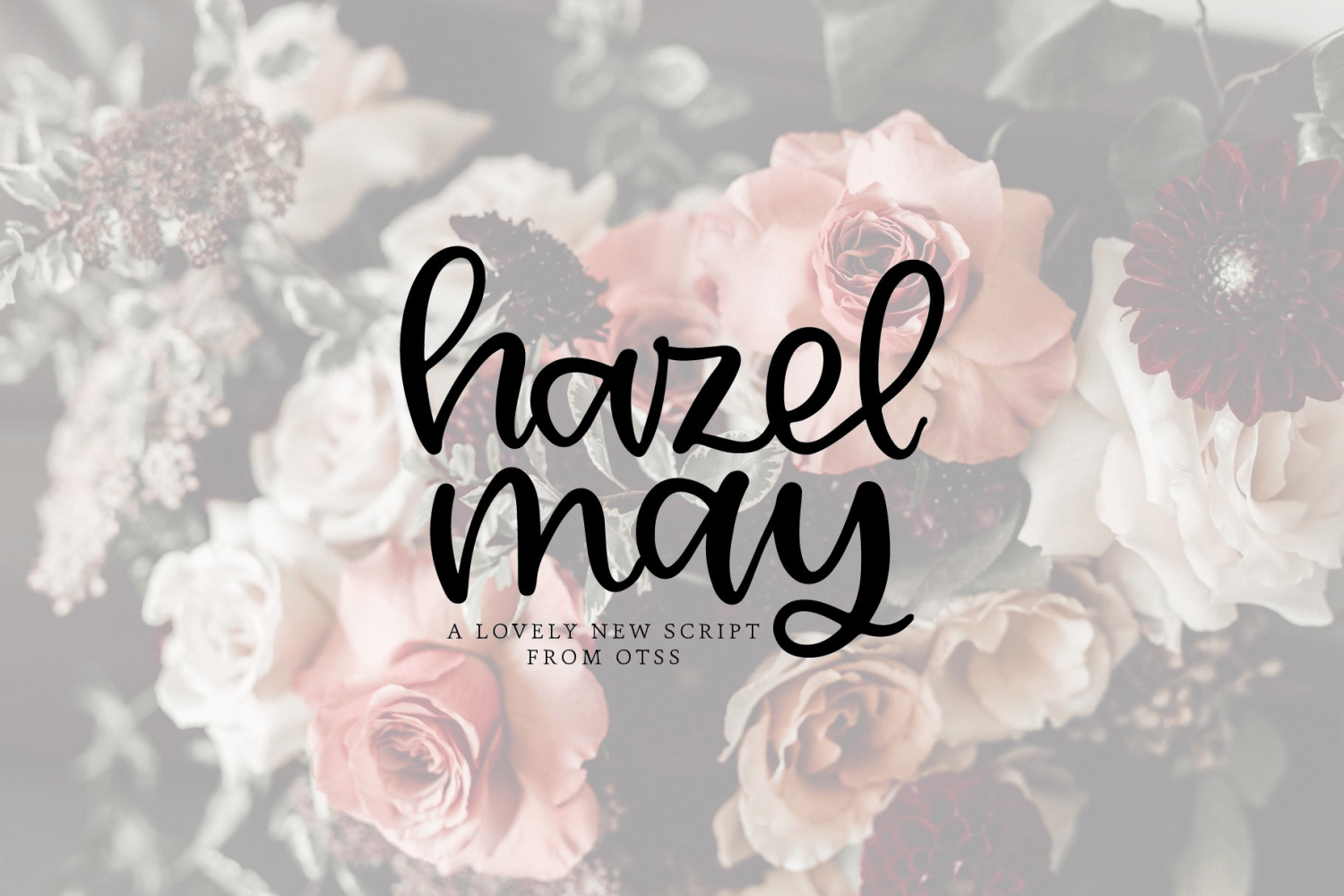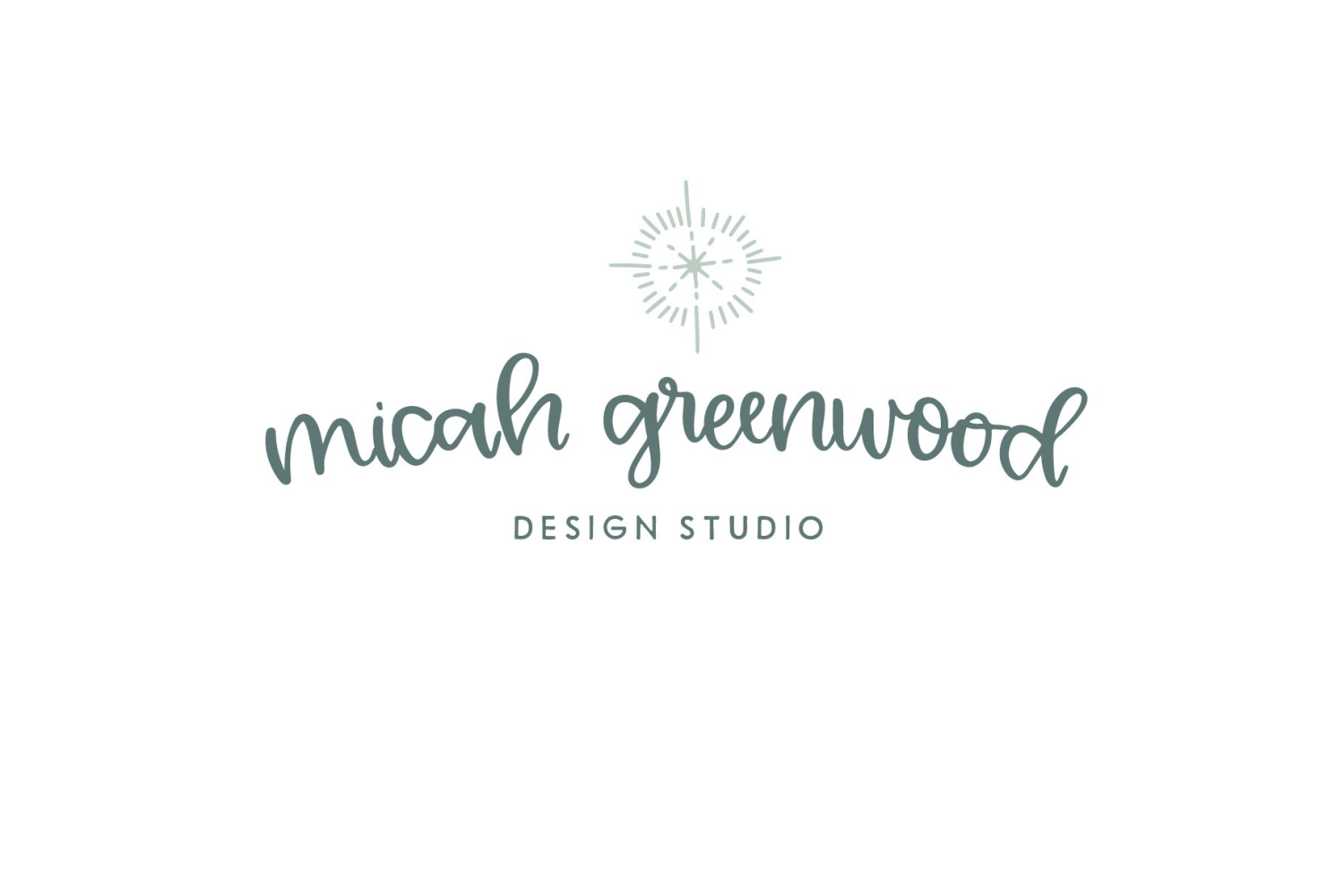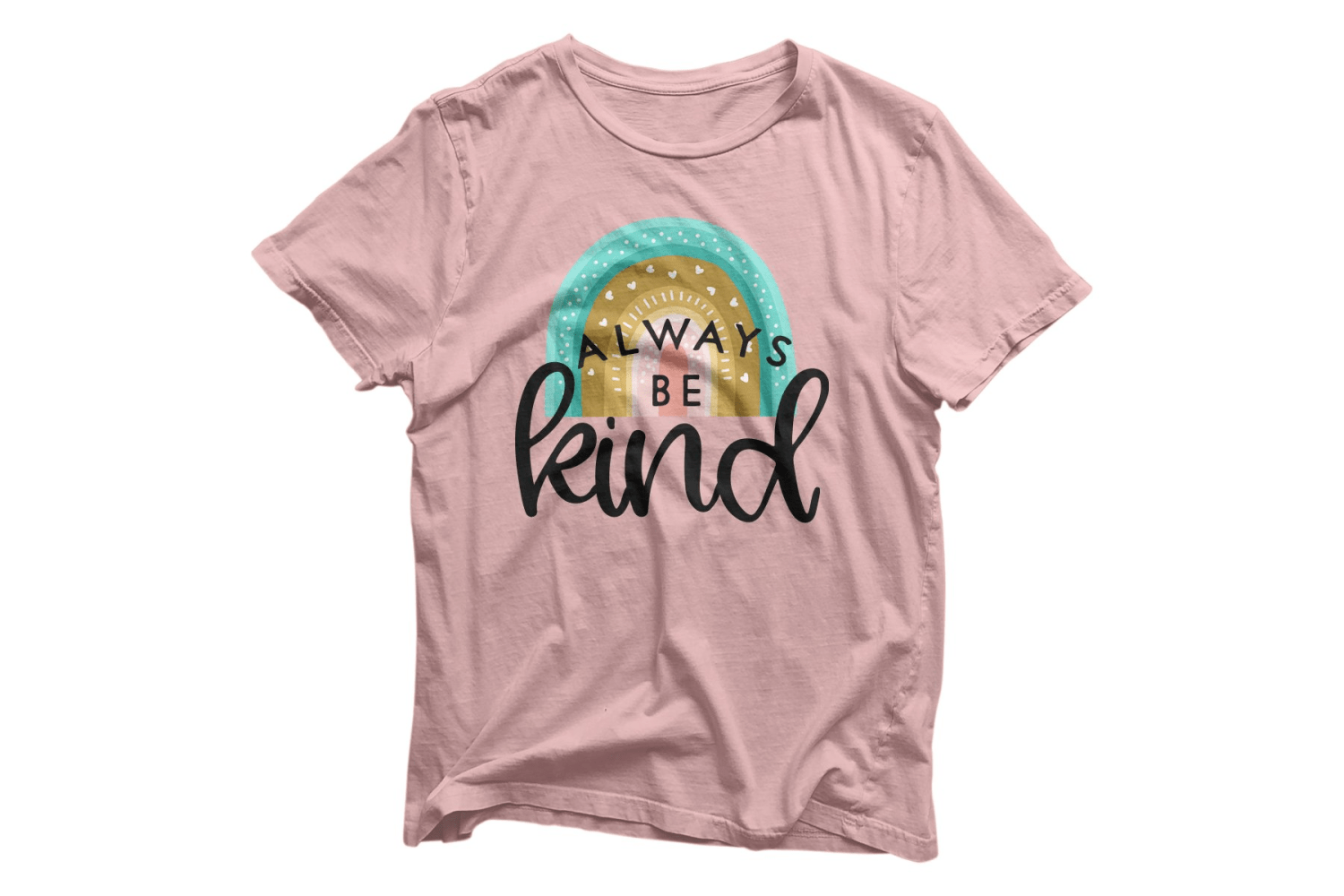
Hazel May
Hazel May is one of those fonts that will always be a work in progress. The more i use it, the more I add ligatures, extras, etc. It is by far, my most "true to my script" script yet. I love the different feels each letter combo gives you when in use. Accented letters and such will be added in an update soon.